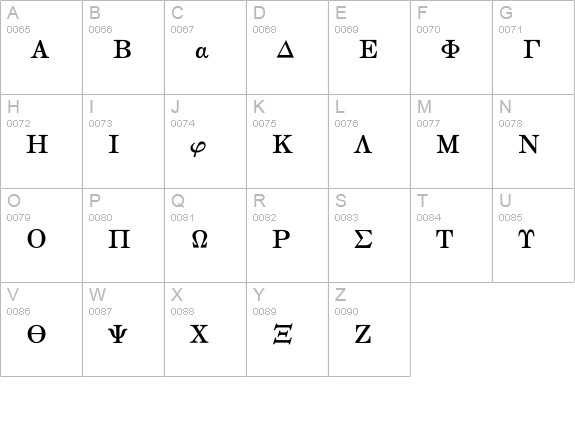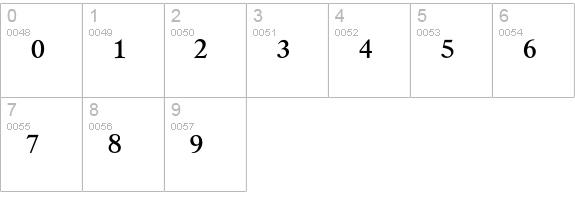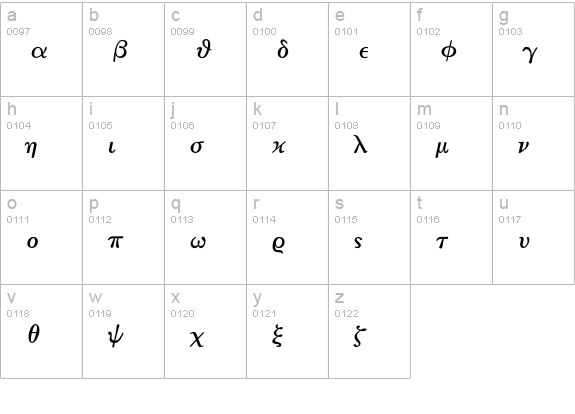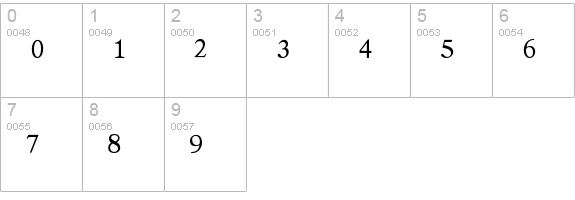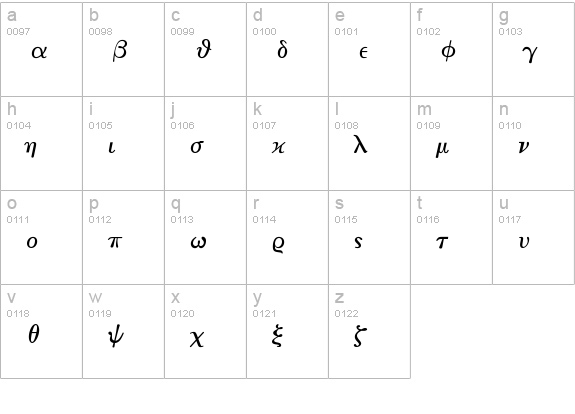
MathTechnicalP11 Font Details
MathTechnicalP11 font is a versatile and professional typeface that is perfect for all your mathematical and technical needs. With its clean lines and precise geometry, this font is designed to enhance the clarity and readability of mathematical and technical documents. Featuring a wide range of mathematical symbols, equations, and scientific notations, MathTechnicalP11 font is an essential tool for students, educators, and professionals alike. Whether you are working on a research paper, creating a presentation, or designing a technical diagram, this font ensures that your mathematical expressions are displayed accurately and elegantly. But what sets MathTechnicalP11 font apart is that it is not only functional, but also visually appealing. Its well-balanced proportions and sharp edges give it a modern and professional look, while its legibility guarantees ease of comprehension. This makes it the ideal choice for any project that requires both style and substance. And the best part is, MathTechnicalP11 font is freely available to download at FontsMarket.com. This means that you can enhance your mathematical and technical documents without having to spend a dime. Simply visit FontsMarket.com, locate MathTechnicalP11 font, and start elevating your work to the next level. So whether you are a student, educator, or professional in need of a high-quality mathematical and technical font, look no further than MathTechnicalP11 font. With its versatility, clarity, and the added bonus of being free to download at FontsMarket.com, it is truly a font that delivers both style and functionality.